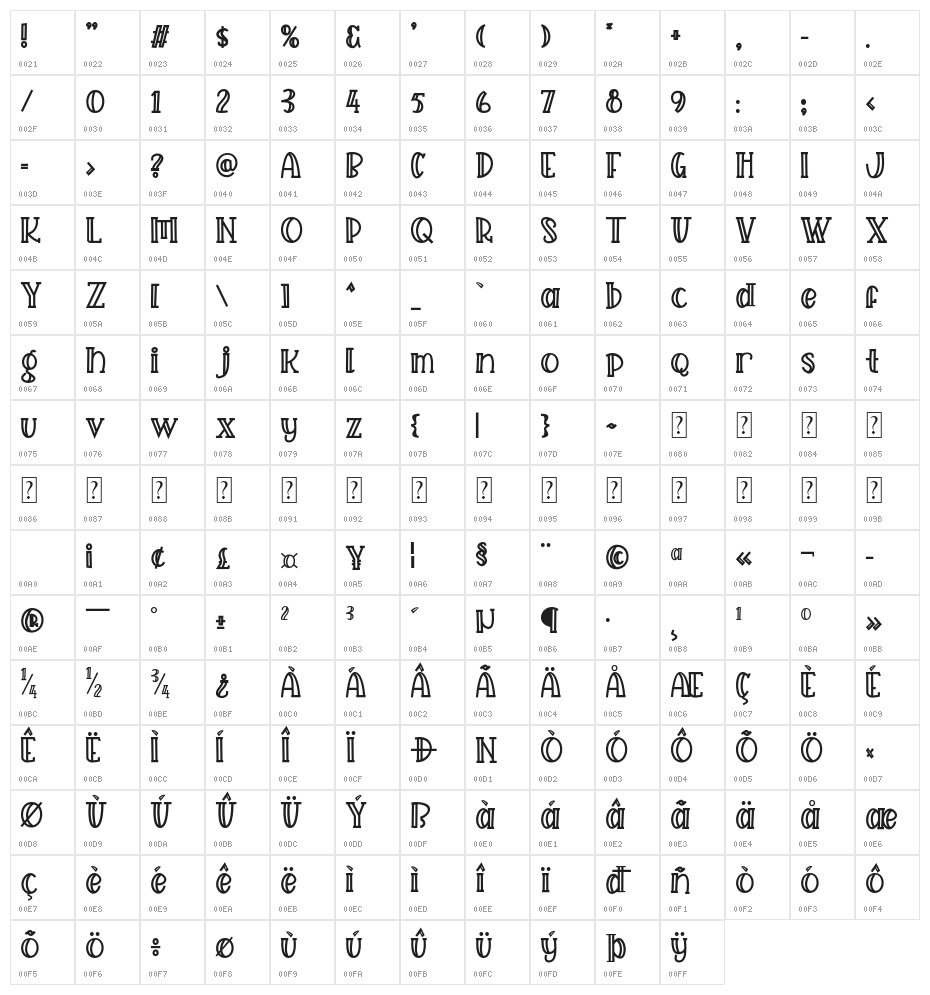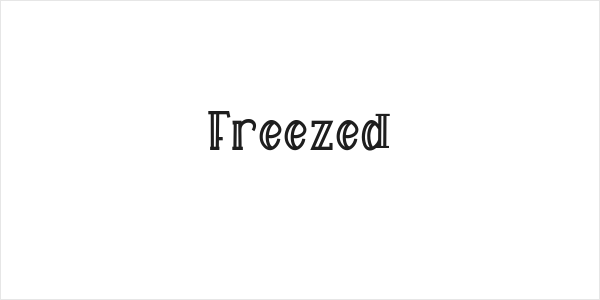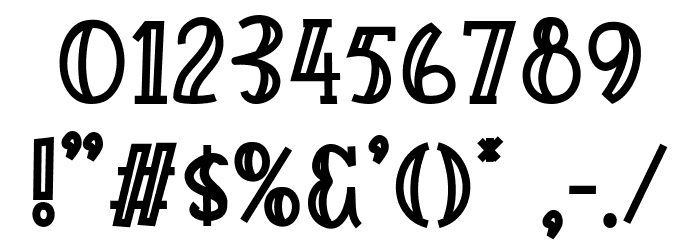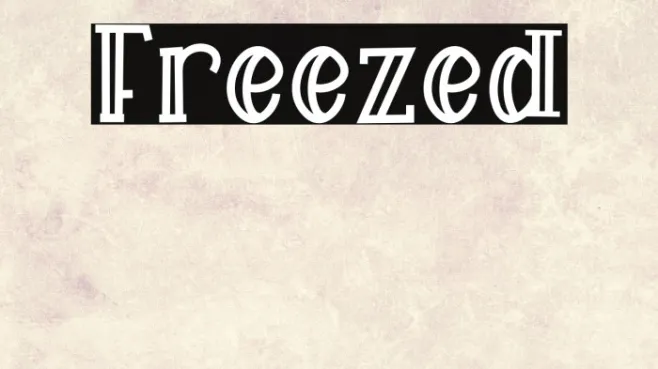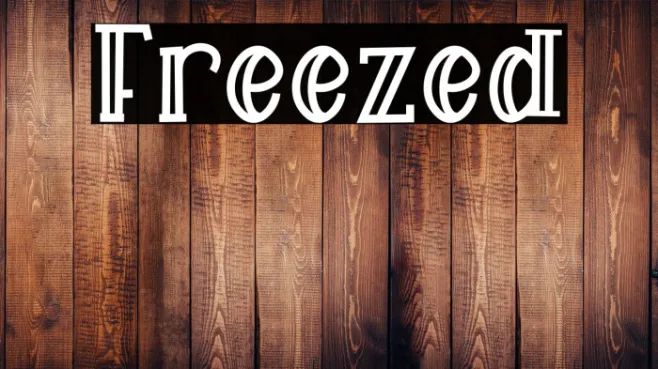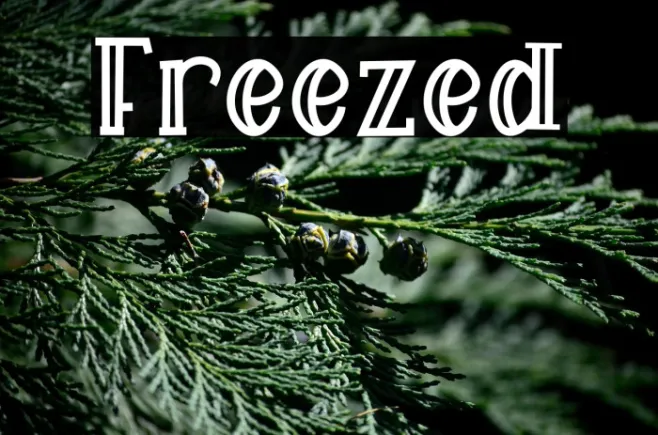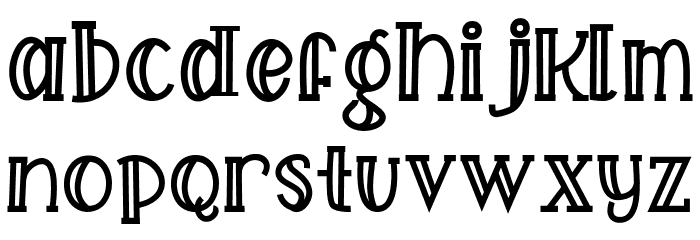
Freezed Font
Freezed Description
This font features a bold and decorative style with a unique blend of geometric and vintage elements. The uppercase letters are characterized by their tall, narrow forms with distinct serifs and occasional decorative flourishes, giving them a playful yet structured appearance. The lowercase letters maintain a similar aesthetic, with some characters exhibiting unique loops and curves that add to the font's charm. The numerals are consistent with the overall style, featuring bold strokes and decorative elements. The special characters are creatively designed, maintaining the font's cohesive look. This font is ideal for projects that require a touch of whimsy and elegance.
| Overall Style | Vintage, Decorative |
| Proposed Projects | Ideal for posters, logos, branding, and any design project that requires a bold, decorative touch. |